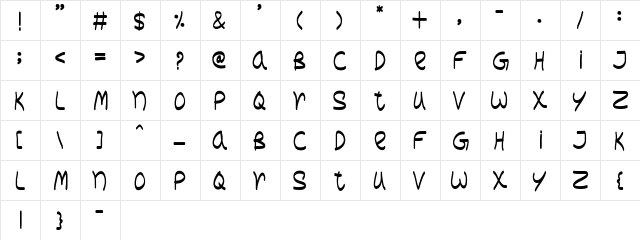
Formiane Regular
| Designer | Md. Shohail Bhuian |
Design Context for Formiane Typeface
Formiane offers clean, dependable letterforms without strong stylistic allegiance, making it a practical choice for designers who need flexibility.